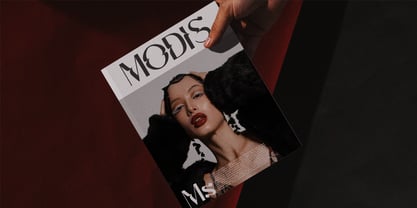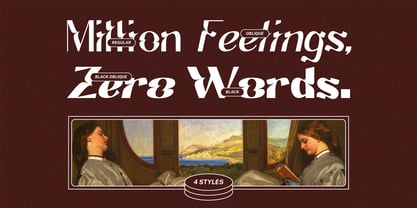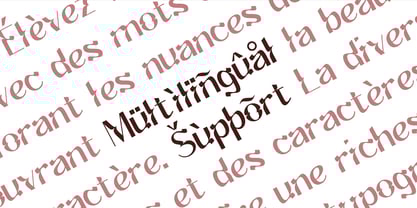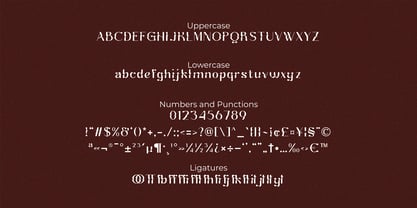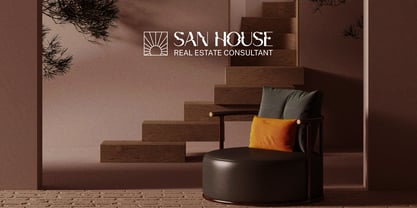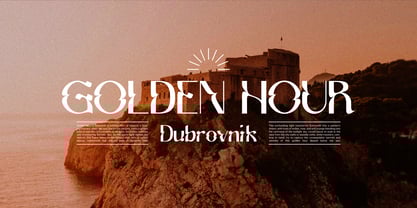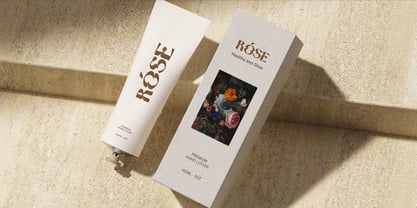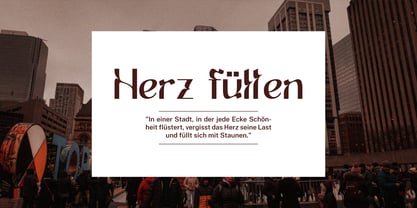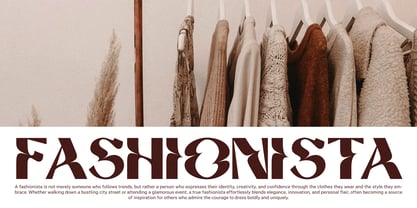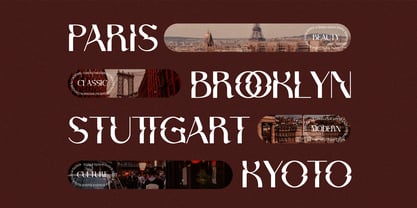
Kaila Moon
by Hakara Type
The Kaila Moon Font Family was designed by Kanisius Adi Klau and published by Hakara Type. Kaila Moon contains 3 styles and family package options. More about this family
Introducing Kaila Moon, a striking modern display font that marries elegance and artistry with a bold experimental edge. Tailored for designers and creatives in search of a distinctive typeface, Kaila Moon showcases a fresh interpretation of letterforms, characterized by high-contrast curves, sculptural cuts, and ornamental details. Ideal for logos, branding, and editorial design, this font demands attention while exuding sophistication. With its unique letterforms and artistic flair, Kaila Moon elevates any project, making it perfect for creative endeavors that aim to make a lasting impression.